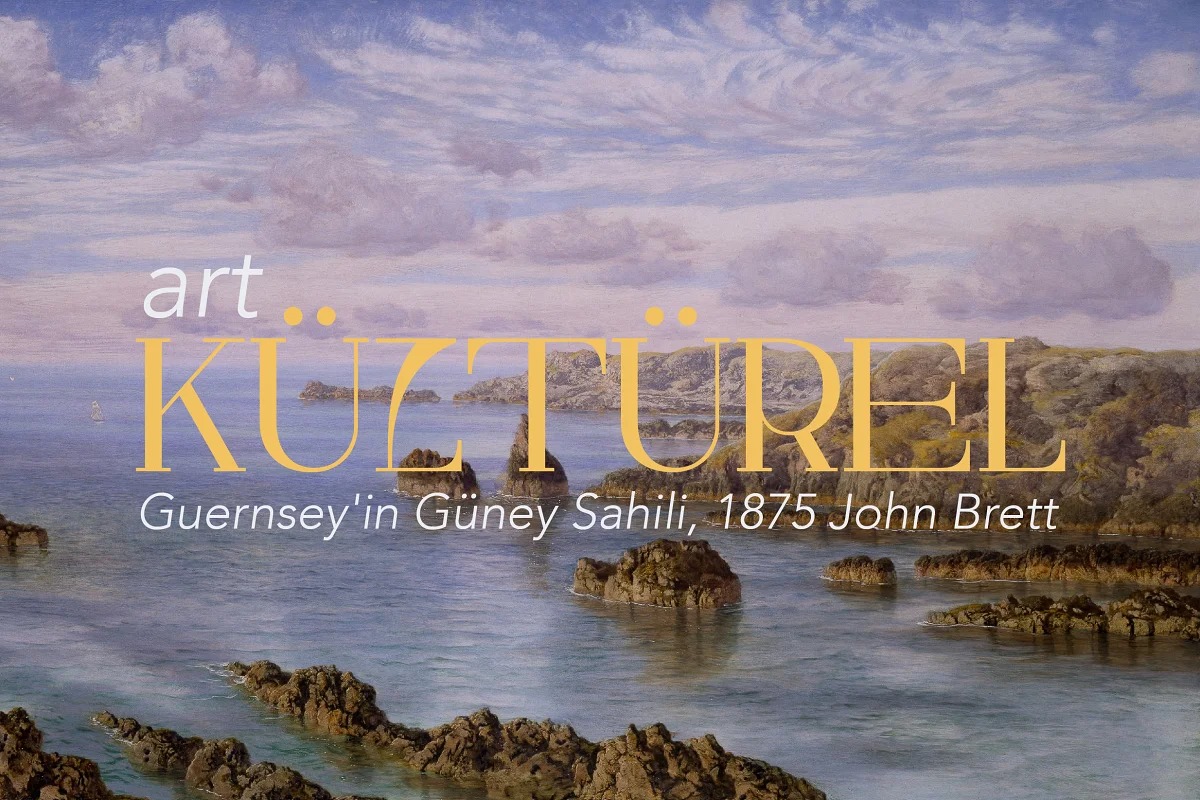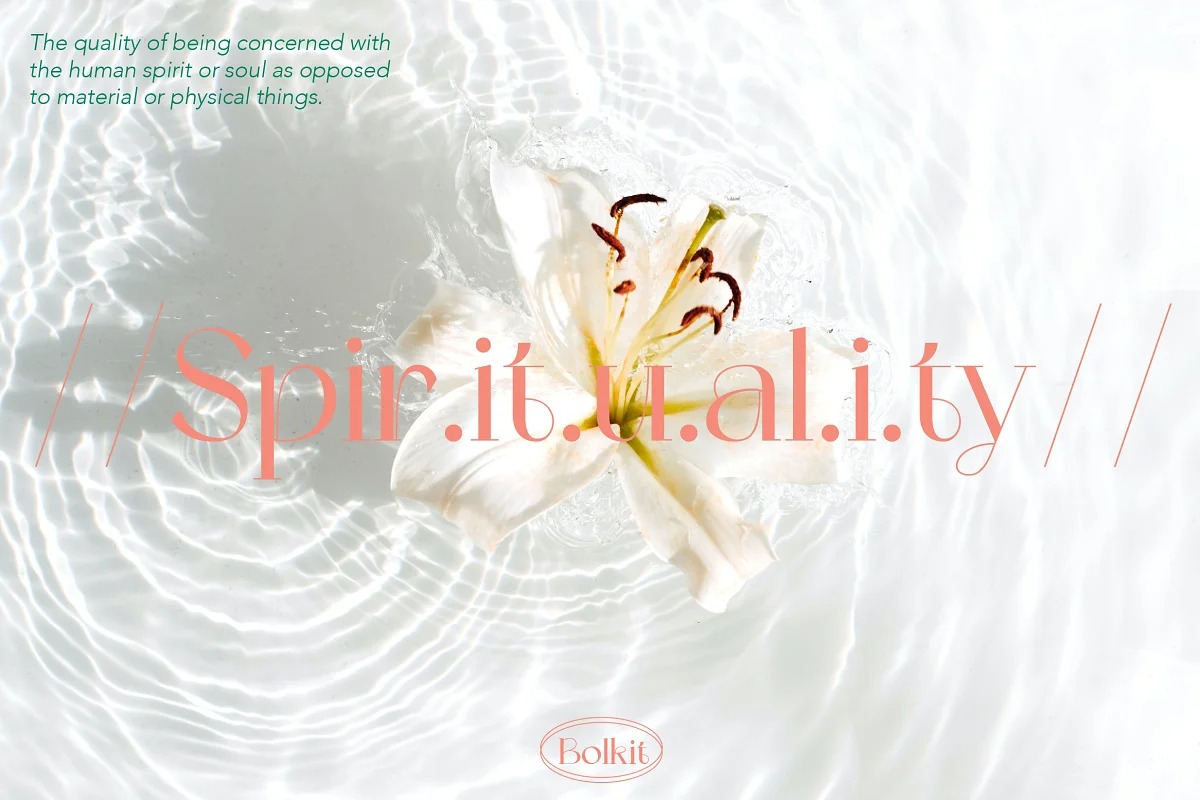
Bolkit Font Family
Bolkit Serif Font
This is a stylish modern font manufactured by zelow type with an elegant and smooth arch shape, while the other has a type of firmness and the character presents a strong character in it. Being a letter whose concept is very interested in simplicity, the lines present in the elegant and firm zt. Bolkit make you feel it too.
zt. Bolkit also comes with two widths that all have two weights (Thin and Bold) Containing characters that include uppercase letters, lowercase letters, numbers, punctuation, 52 ligatures, 25 alternatives and symbols that will make your designs cooler in the future. Do not forget also this supports more than 60 languages derived from Latin, namely Western, Central and Southeastern European languages.